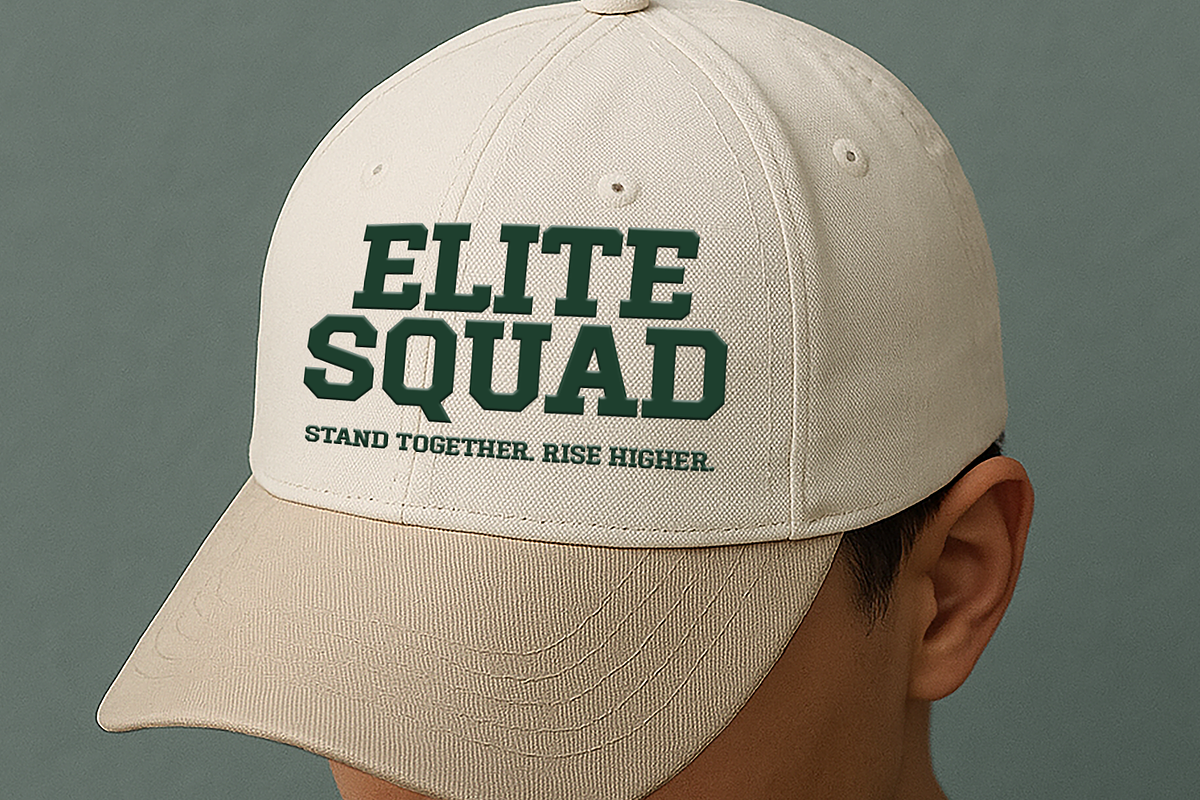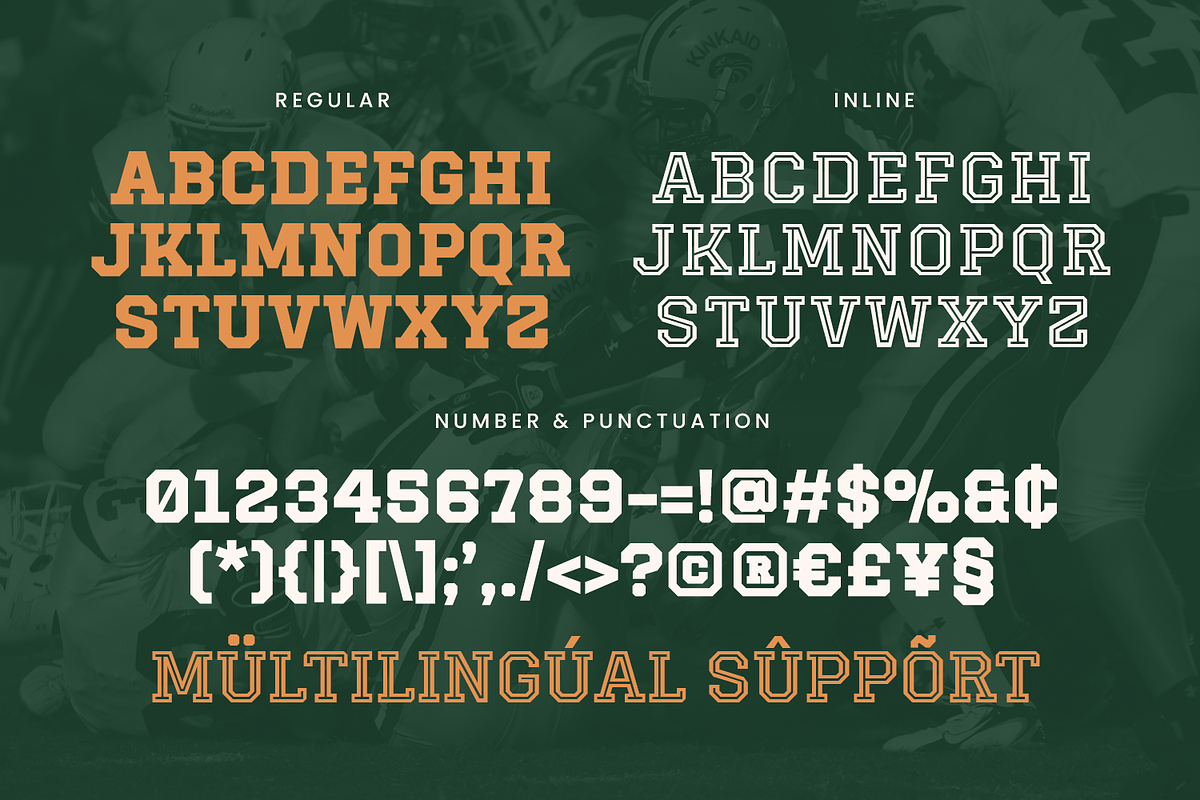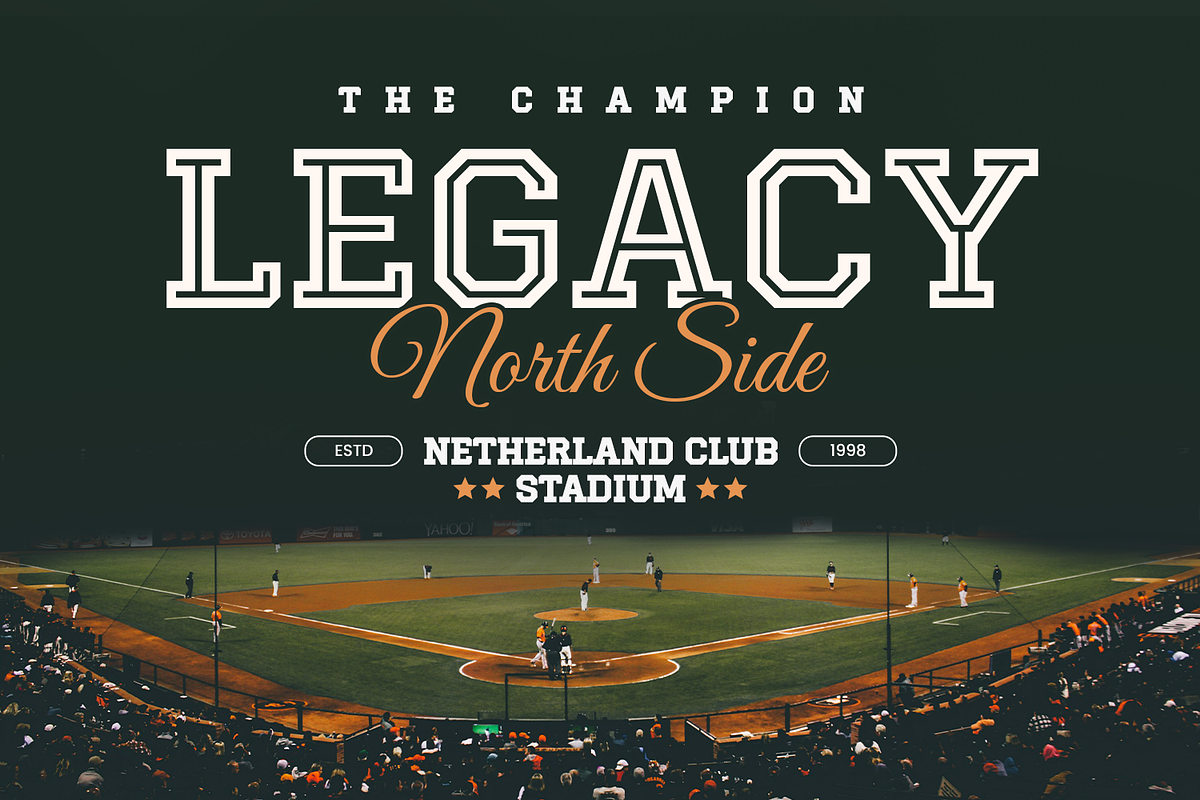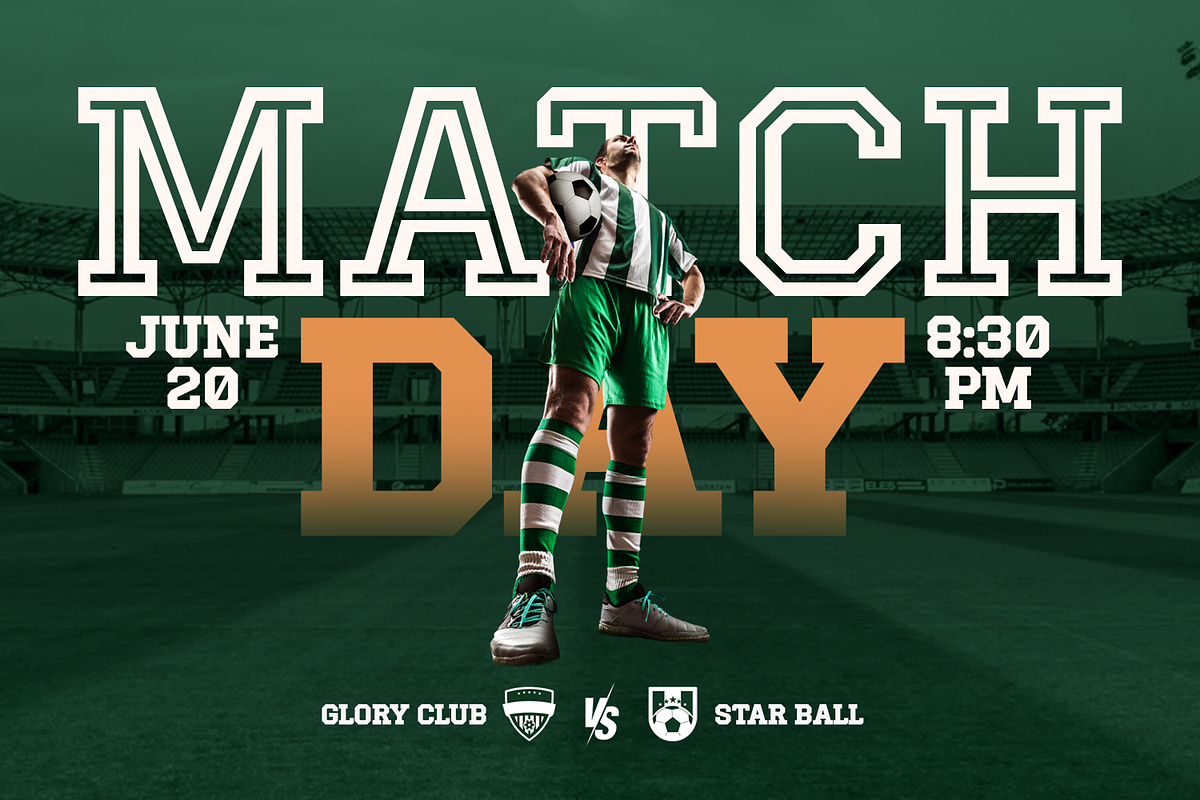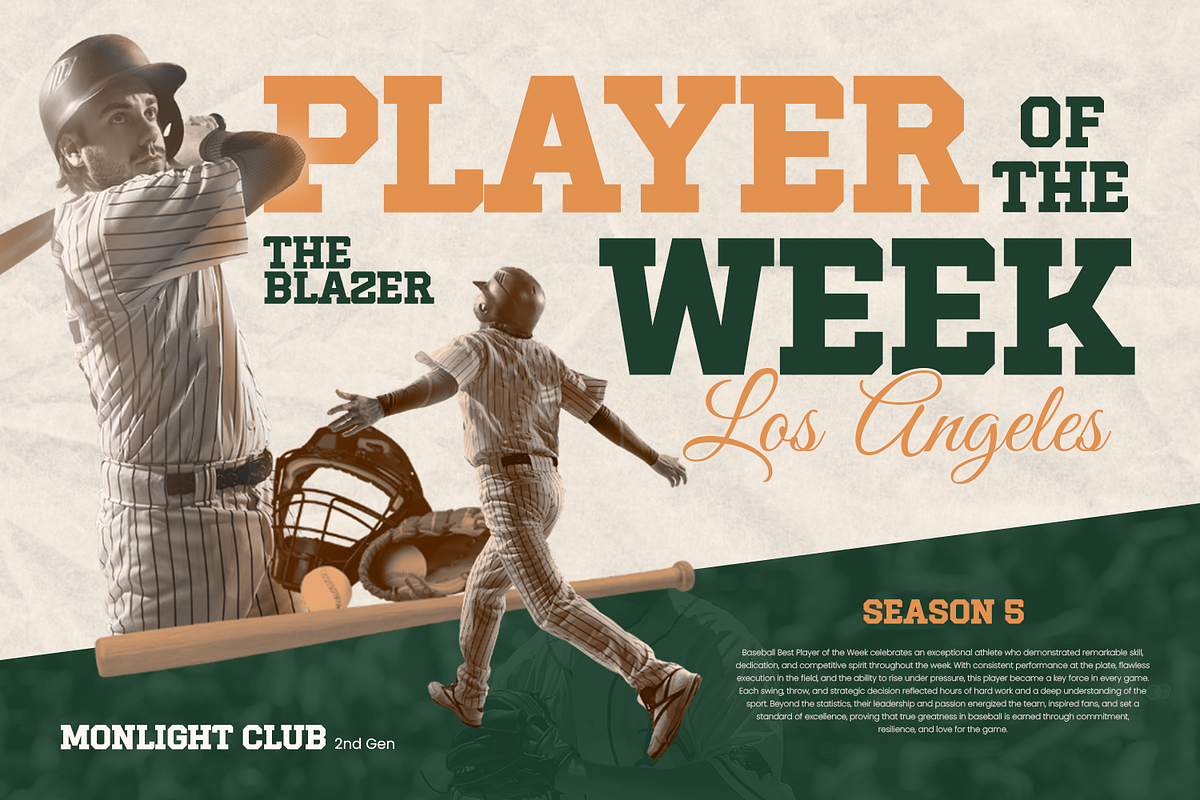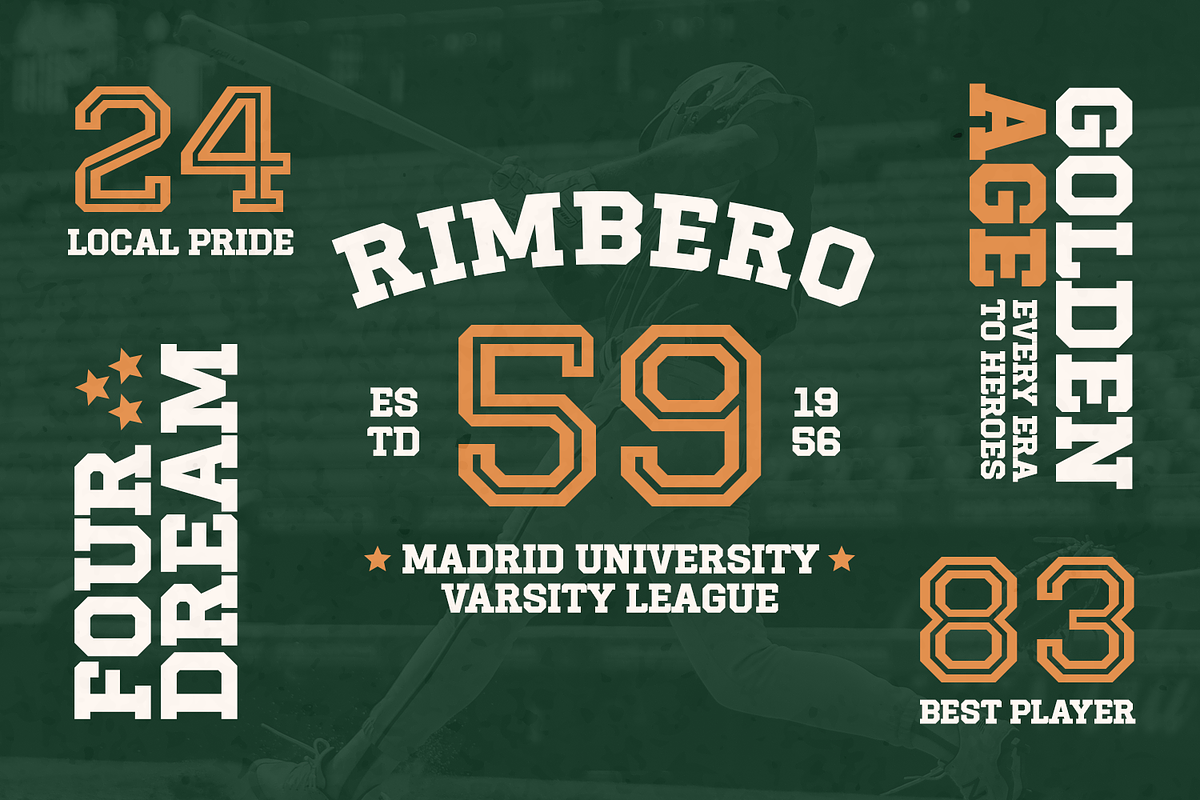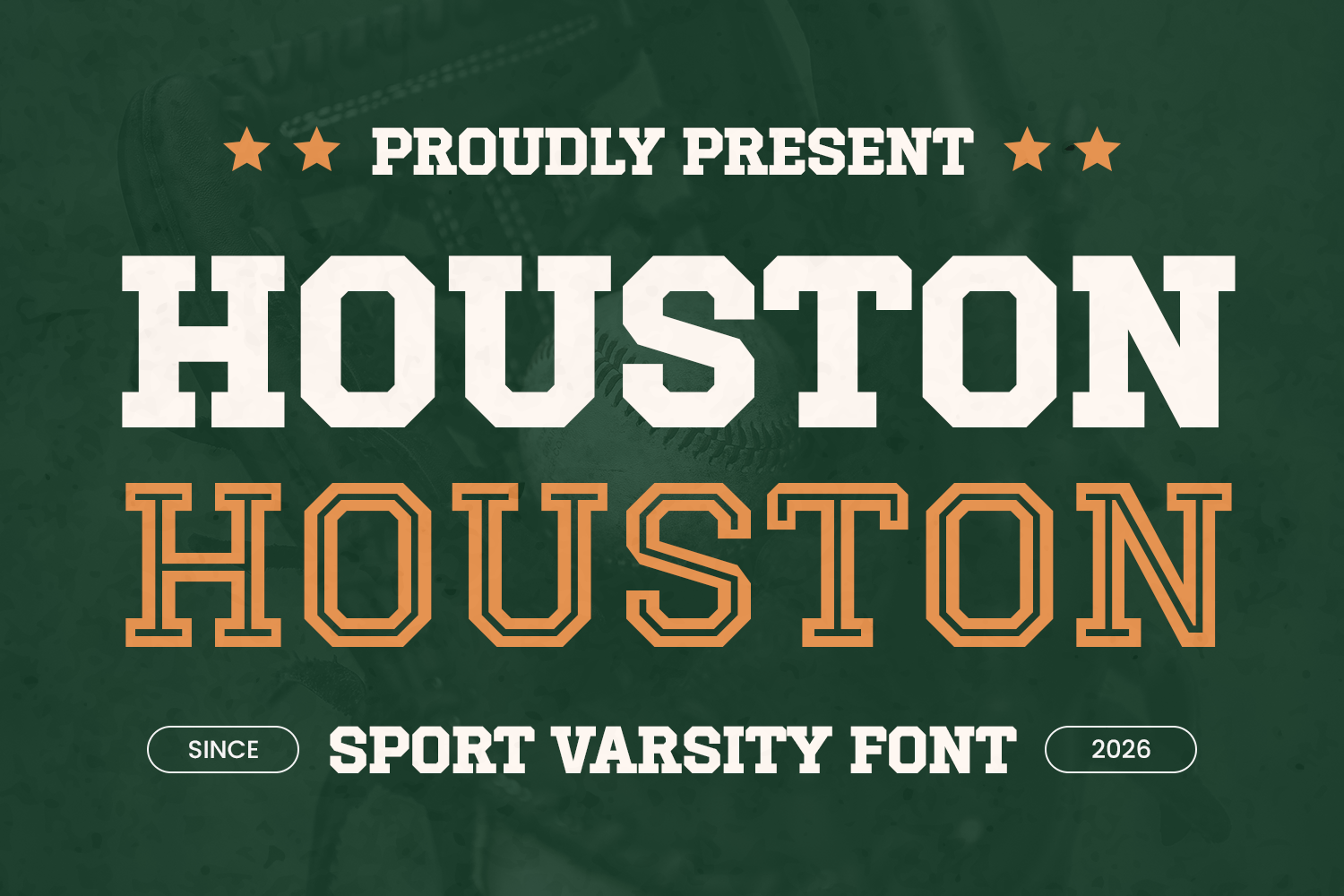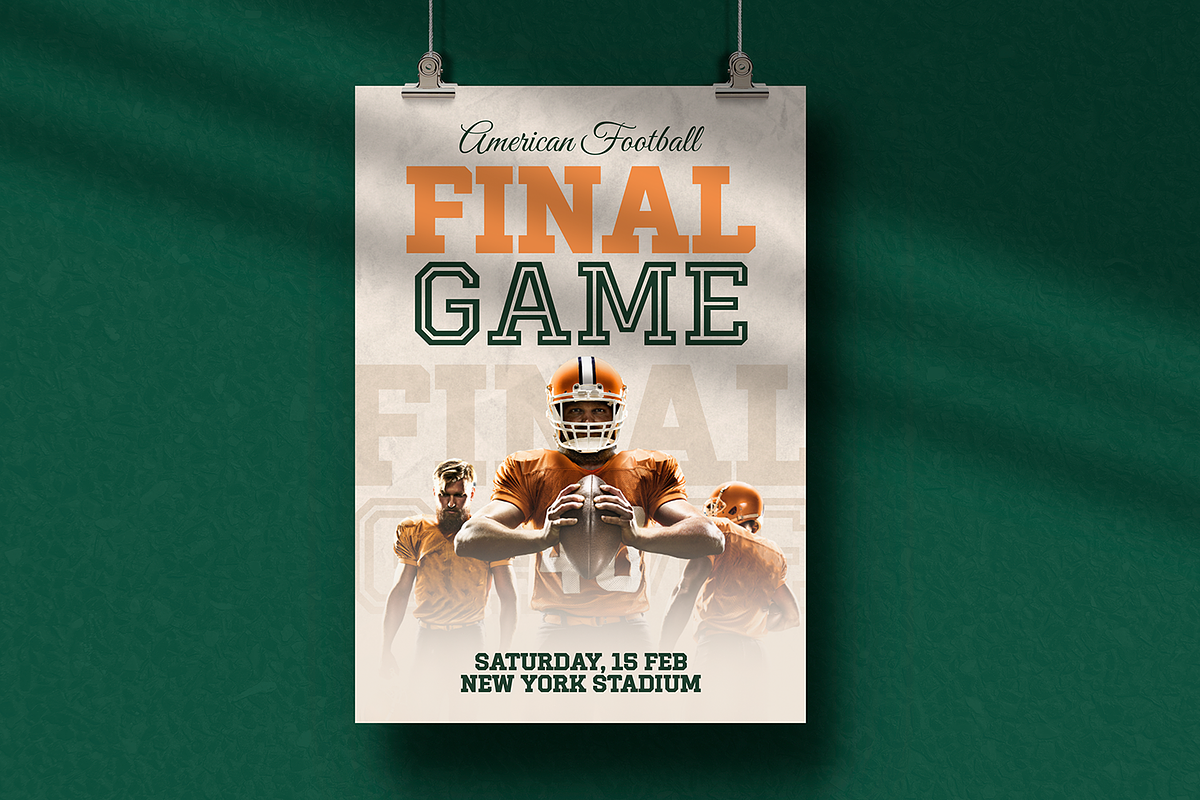
Varsity Font - Houston
Houston – Bold Sports Slab Serif Font Houston is a powerful slab serif font built to deliver strength, confidence, and bold character in every design. With its solid letterforms and strong slab structure, this font creates a commanding visual presence that instantly captures attention. Houston is designed for projects that demand impact, clarity, and a strong typographic identity.
Crafted as a display slab serif, Houston is especially suited for sports and athletic themes. Its bold strokes and balanced proportions provide excellent readability while maintaining a rugged and competitive style. Whether used for posters, headlines, or large typography, Houston stands out with authority and energy.
The font includes 2 distinct styles, giving designers flexibility when building creative compositions. These styles combine the classic movement of vintage sports typography with a modern minimalist influence, resulting in a typeface that feels both timeless and contemporary.
Houston is ideal for sports branding, baseball themes, esports graphics, and athletic identities. It performs exceptionally well in jersey designs, team logos, merchandise, posters, clothing branding, product packaging, and magazine titles. The bold slab structure also makes it a strong choice for album covers, gaming visuals, and competitive-themed designs.
With its strong visual foundation and energetic character, Houston helps designers create typography that feels powerful, confident, and memorable.
Key Features Bold Slab Serif Display Font Strong slab structure designed for impactful typography.
Sports-Inspired Design Perfect for athletic, baseball, and esports branding.
2 Font Styles Provides flexibility for creative design compositions.
Highly Readable Display Typography Clear and bold letterforms ideal for large text.
Vintage Sports Influence Inspired by classic athletic typography with a modern twist.
Multilingual Support Extended characters for international use.
Perfect For • Sports Logos & Team Branding • Baseball & Athletic Designs • Esports Graphics • Jersey & Apparel Design • Posters & Headlines • Magazine Titles • Product Packaging • Album Covers & Gaming Graphics
Multilingual Support Supports many languages including Afrikaans, Danish, Dutch, English, Estonian, Filipino, Finnish, French, Galician, German, Indonesian, Irish, Italian, Luxembourgish, Norwegian Bokmål, Norwegian Nynorsk, Portuguese, Romansh, Spanish, Swedish, Swiss-German, Uzbek (Latin), Scottish, and more.